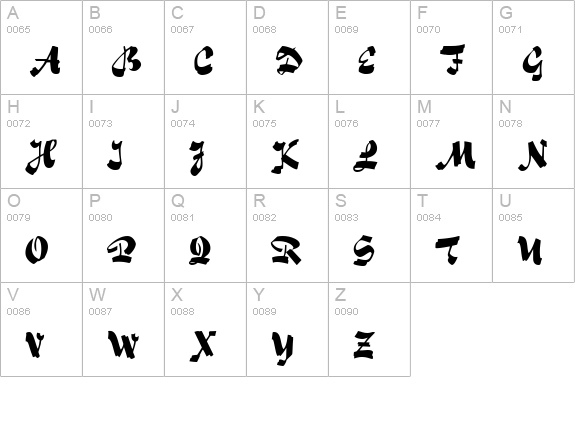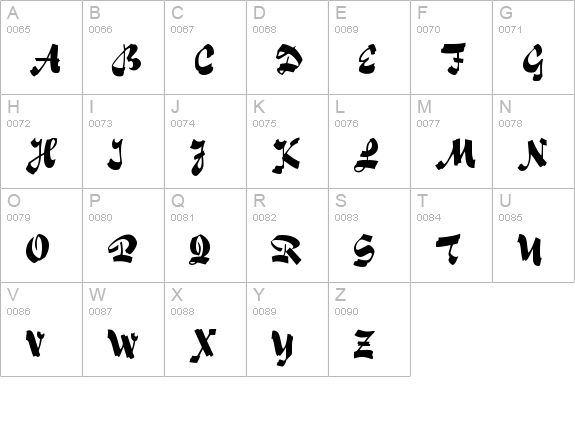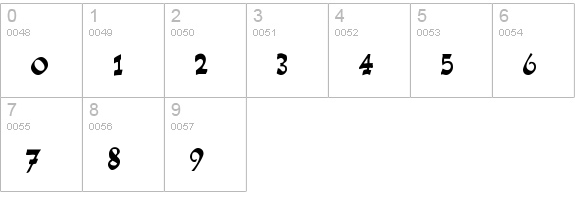
Introducing Saki Script, a captivating and versatile font that will effortlessly elevate your designs to new heights. With its flowing and elegant handwritten style, this font exudes a sense of sophistication and charm. Saki Script is the perfect choice for any project that requires a touch of elegance, whether it's wedding invitations, branding materials, logos, or social media graphics. Its smooth and rounded letterforms create a harmonious and visually pleasing composition that will captivate your audience. What makes Saki Script even more appealing is that it is available for free download at FontsMarket.com. With just a few clicks, you can add this stunning font to your collection and start creating beautiful designs right away. The generous availability of Saki Script ensures that everyone can access its beauty and versatility without any limitations. This font offers a wide range of stylistic alternates and ligatures, allowing you to truly customize and personalize your designs. Whether you prefer a more casual and playful look or a sophisticated and elegant aesthetic, Saki Script has you covered. Furthermore, Saki Script is designed with meticulous attention to detail, ensuring that it is easy to read and legible at any size. Its smooth and consistent strokes guarantee a seamless and professional finish, making it a reliable choice for both print and digital projects. Don't miss out on the opportunity to enhance your designs with Saki Script. Download it for free at FontsMarket.com and take your creative endeavors to new heights. With its timeless elegance and versatility, this font is sure to become a valuable asset in your design toolkit.